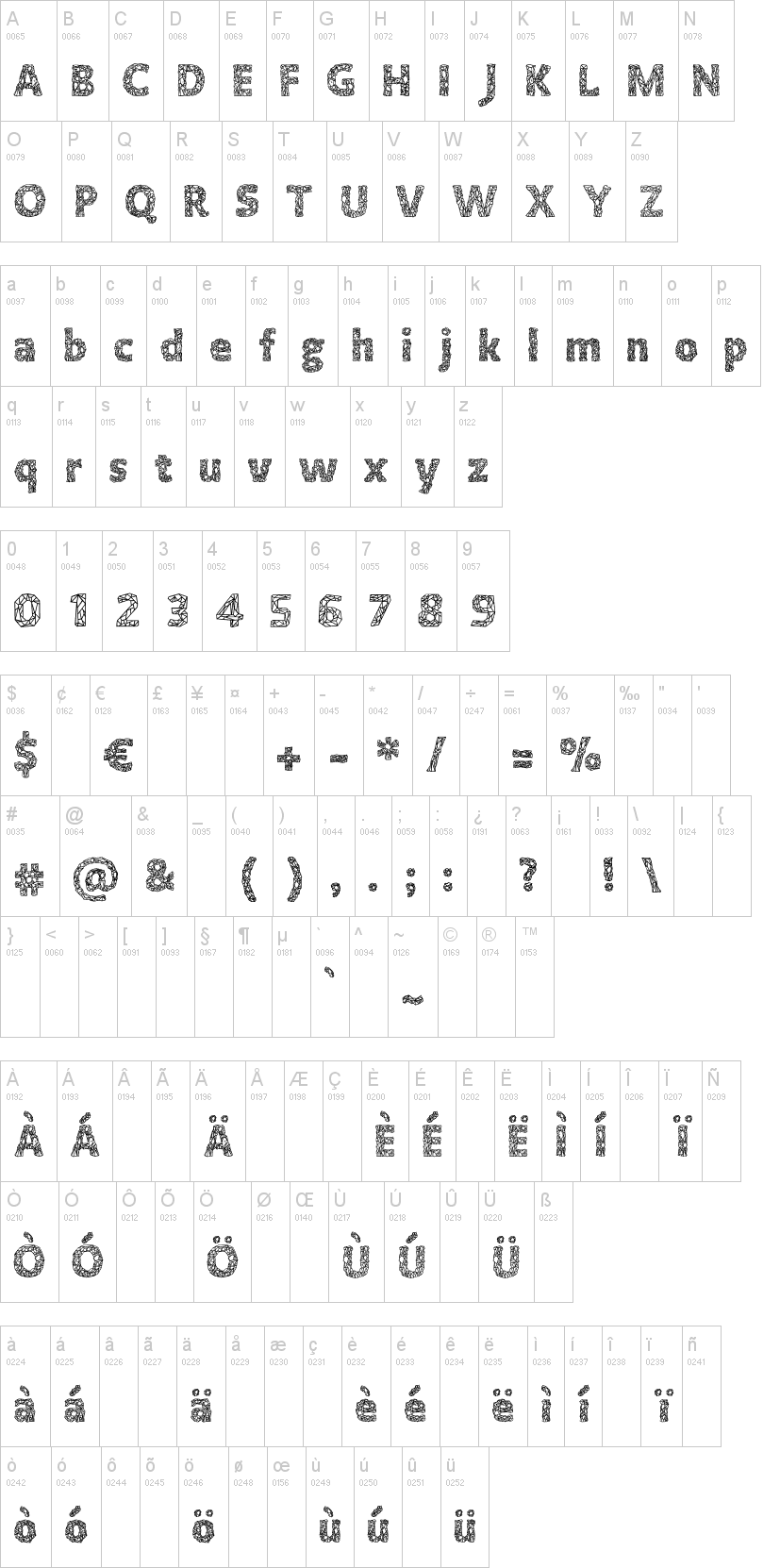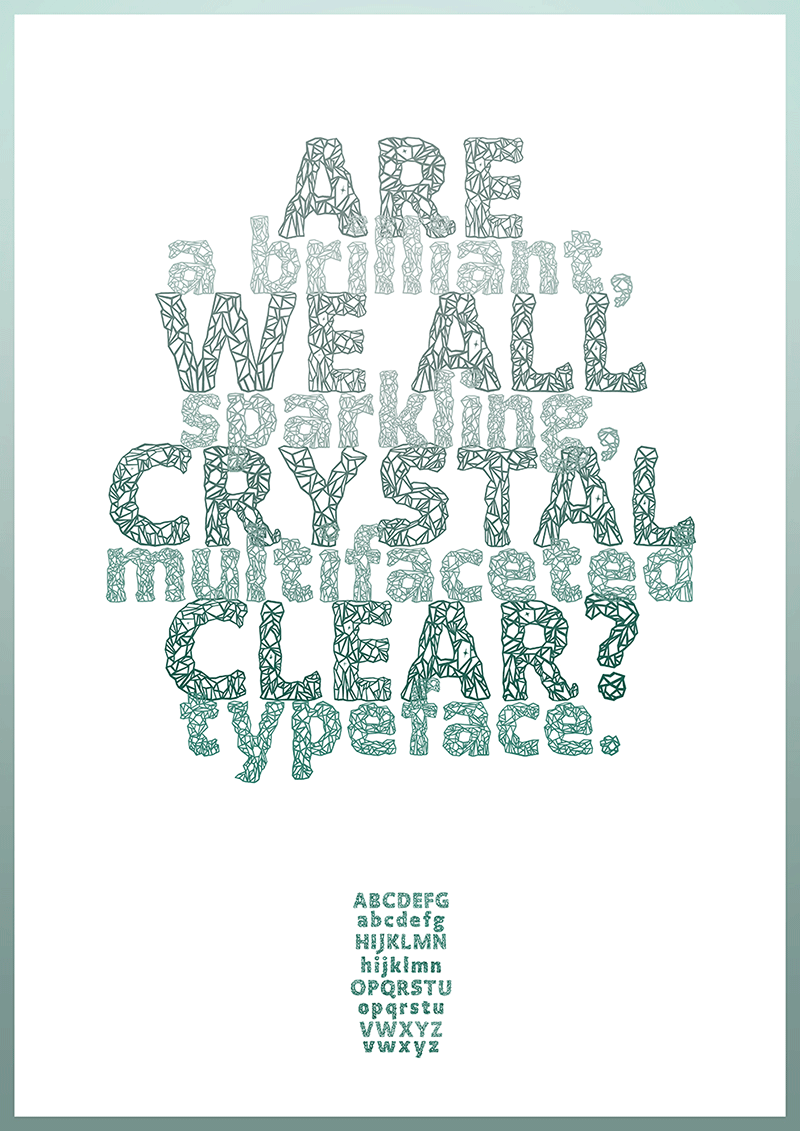
CrystallineNegative.ttfNote of the authorCrystalline is a typeface based on crystal shapes, and is the forefront of further type&crystal experiments, with the focus on programming into 2D and 3D shapes in the near future. More of the specimen and progress into crystals can be seen on http://www.arthus.nl
Includes both an outline and negative version.